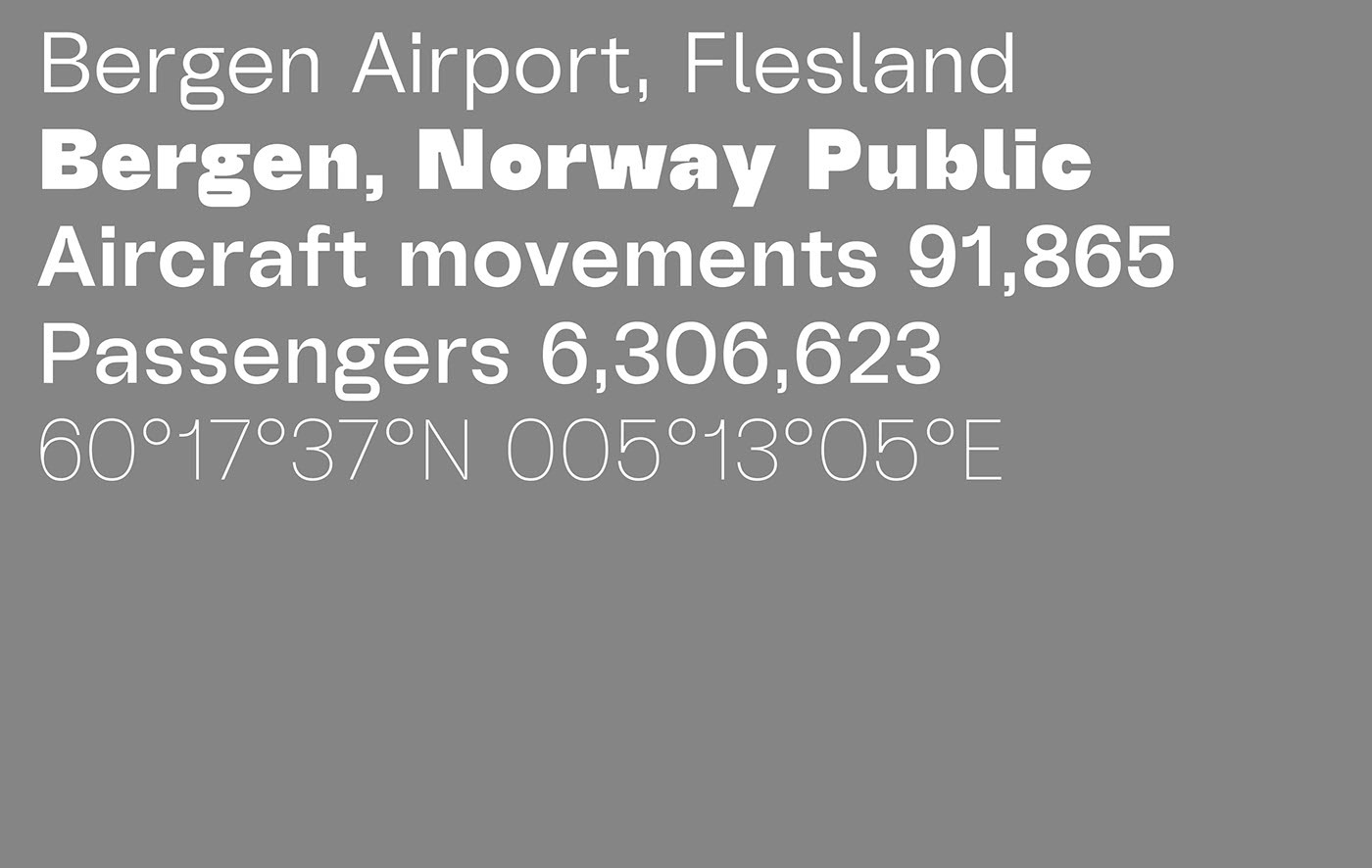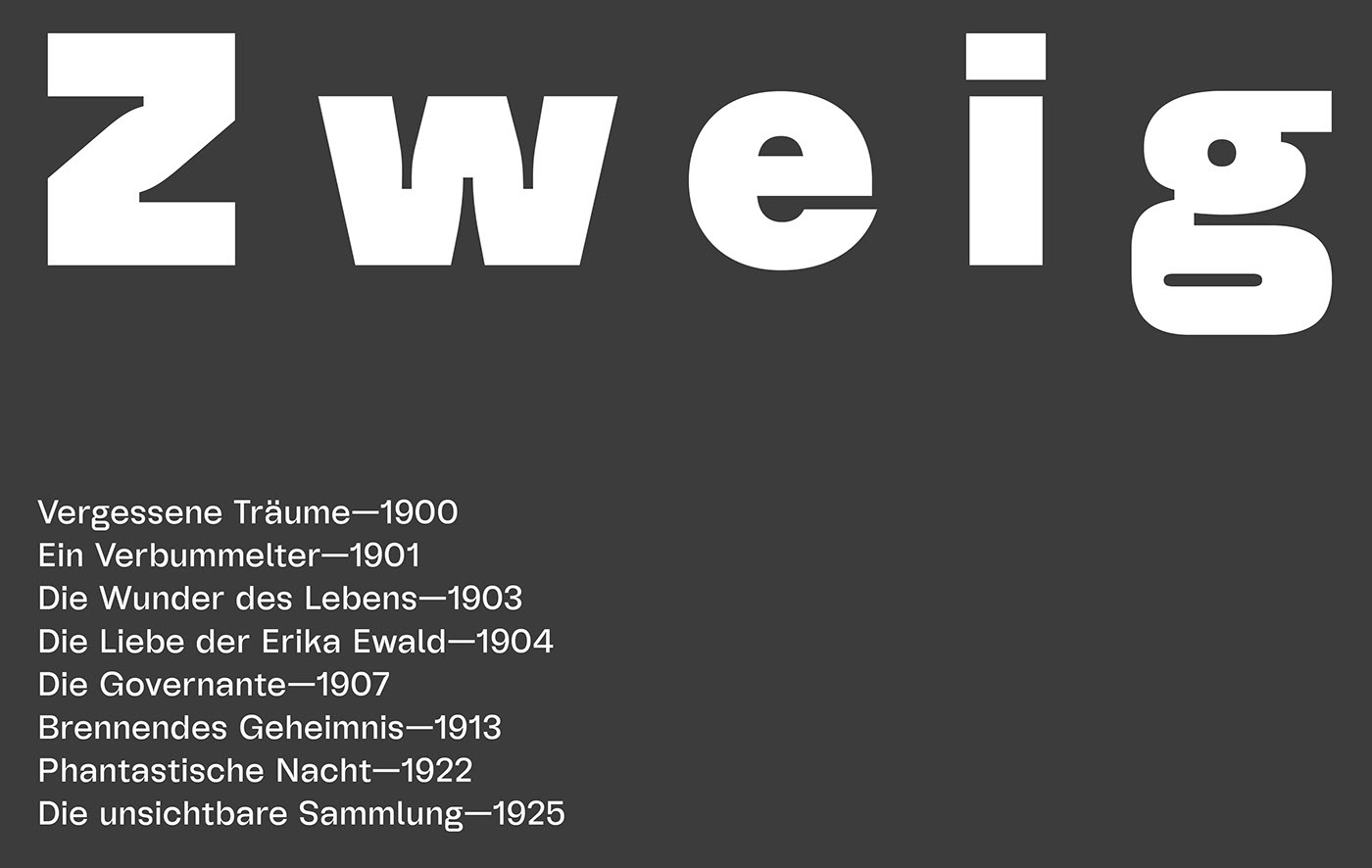
Ranua Font Family
Ranua Sans Serif Font
It’s a display sans serif font designed by Muhittin Güneş in 2018-2019. Ranua has deep ink traps, that way it is more clear to use in big size like posters and big spaces. Designed for screen and bigger sizes. Ranua has 8 different weights including Thin to Heavy. Each weights of Ranua has 550+ Glyphs. A to Z with uppercase and lowercase Latin alphabet, numbers, alternative characters sets, standart and discretionary ligatures, ordinal and fractions.